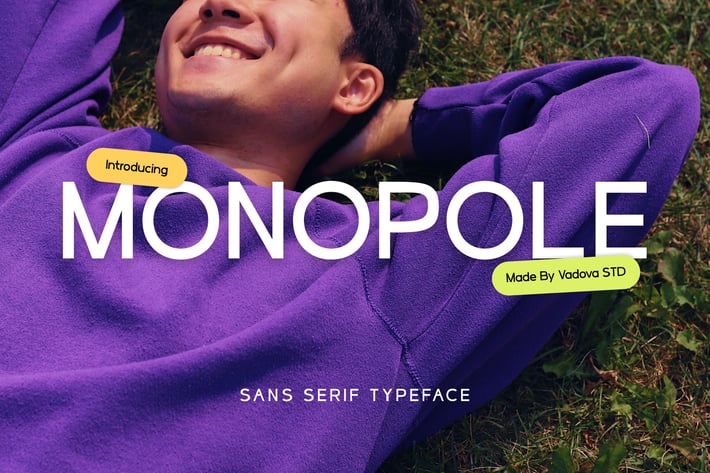
Monopole Sans Serif Font
Monopole is a modern sans serif typeface designed with striking clarity and confident energy. Its clean and bold structure evokes a professional yet approachable vibe, making it suitable for both expressive headlines and refined branding.
Crafted with sharp precision and smooth geometric alignment, Monopole balances technical elegance with aesthetic clarity. The font carries a futuristic flair with a touch of minimalist sophistication, ideal for digital-era visual identity.
Its neutral yet distinctive character works well across Instagram graphics, tech brochures, fashion layouts, children’s storybooks, and editorial spreads. The sans-serif letterforms are highly legible, featuring slightly rounded edges and consistent spacing, ensuring smooth readability and a refined appearance.
Whether you're crafting bold branding systems, designing packaging that pops on the shelf, or producing content for modern digital platforms, Monopole adapts seamlessly.